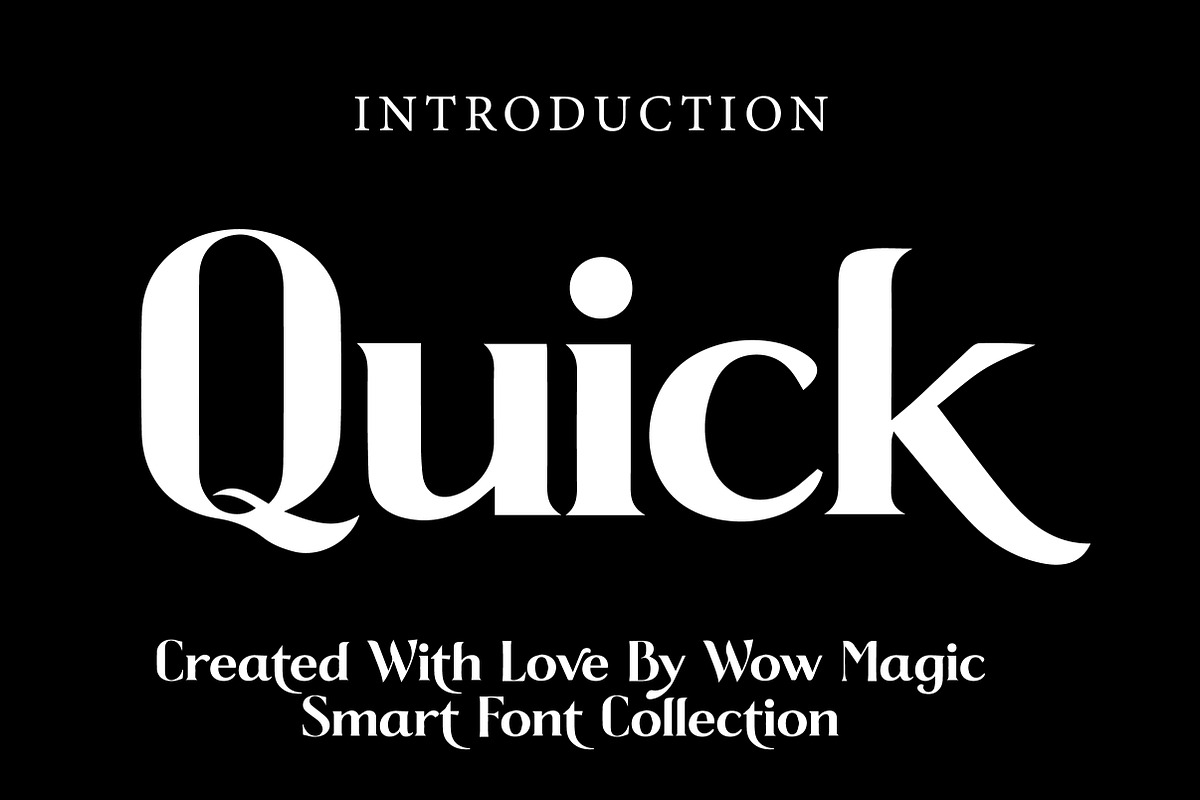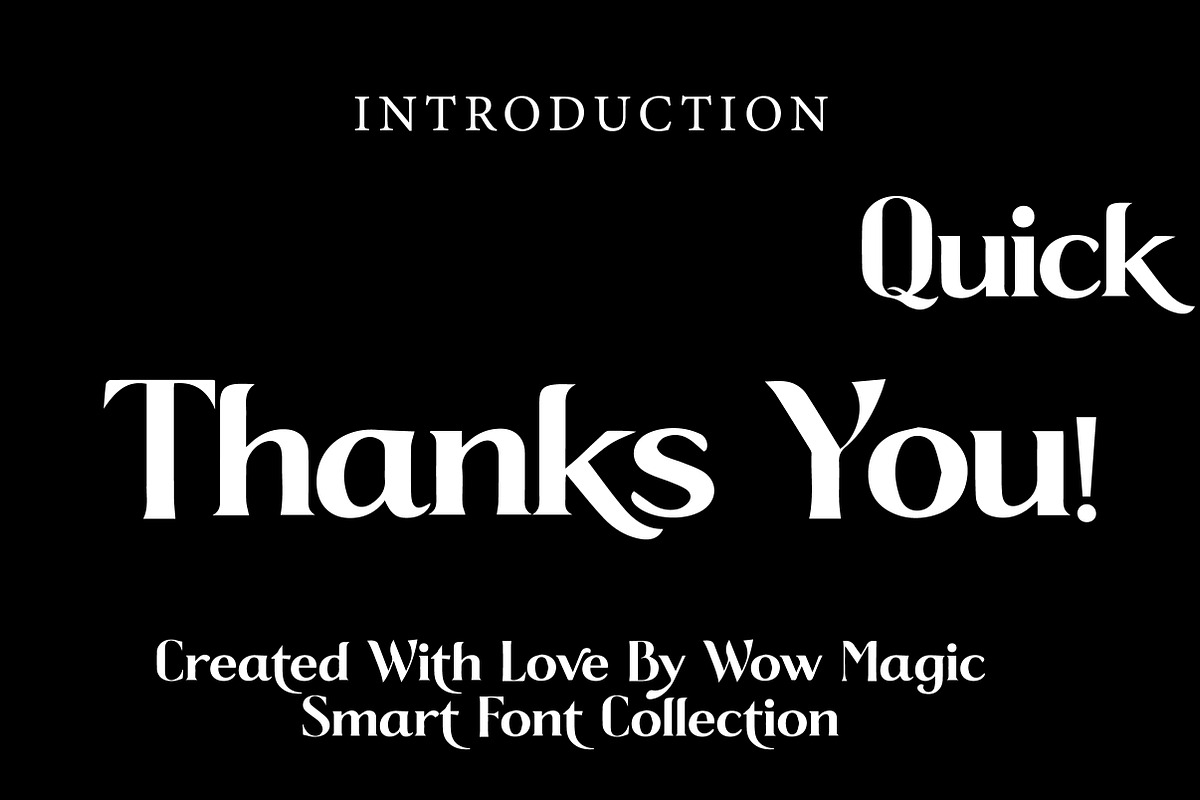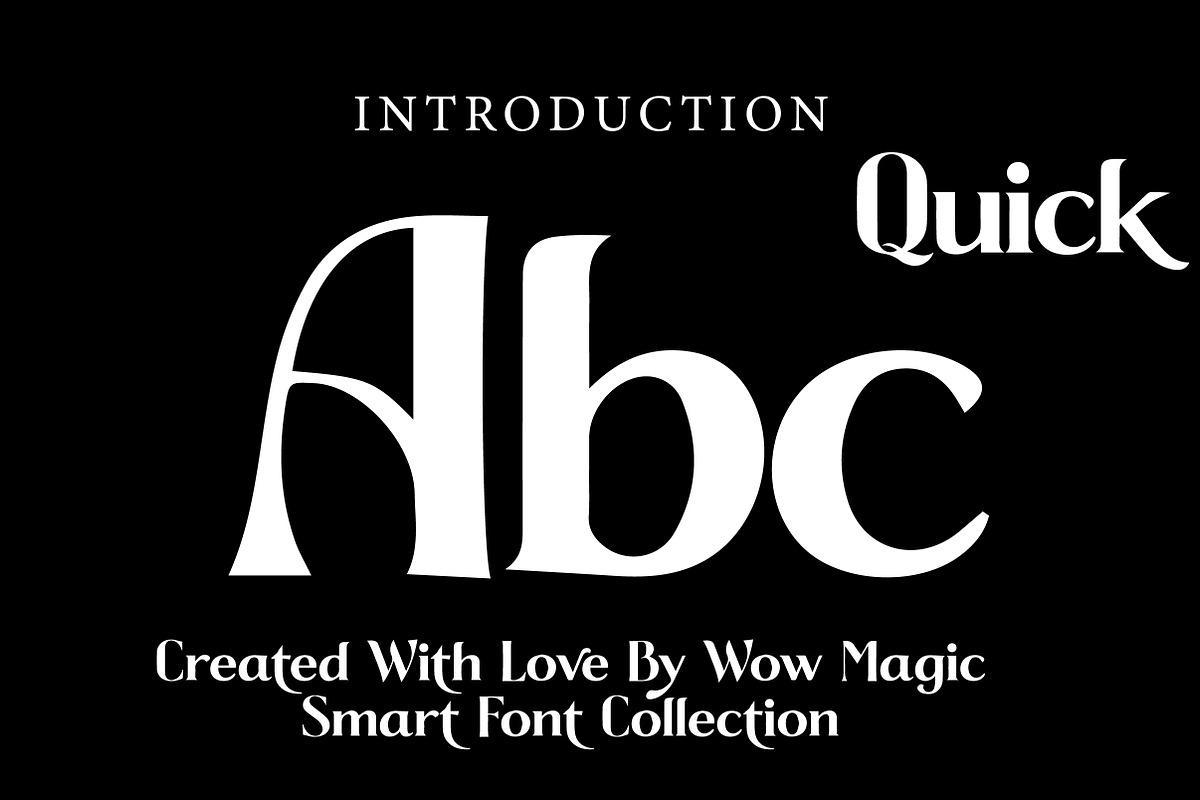
QUICK
Quick is a bold and elegant serif display font designed with smooth curves, strong contrast, and refined letterforms. Its stylish structure combines classic serif sophistication with a modern editorial look, creating a typeface that feels both timeless and contemporary.
The confident strokes and graceful terminals give the font a premium personality, making it ideal for branding, logos, magazine headlines, posters, book covers, packaging, and luxury design projects. Quick stands out with its clear readability and polished appearance, allowing it to perform beautifully in both large headlines and branding applications.
Quick is perfect for designers who want a typeface that feels fast, confident, and elegant while maintaining a strong visual presence. It brings a sophisticated editorial tone to any creative project.
Editorial Headlines
Branding Projects
Magazine Covers
Luxury Branding
Modern Posters